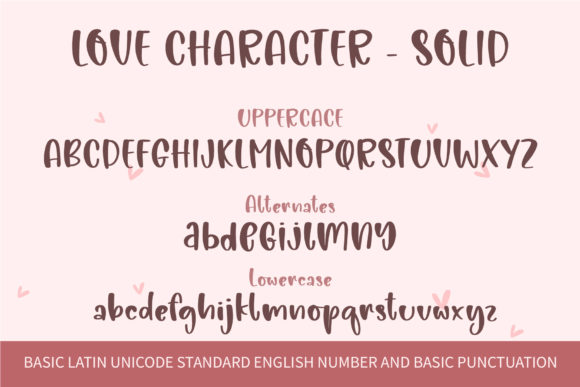
Love Font
db-ku.com - Script & Handwritten -- Love is a cute handwritten font. Its sweet and full of life style makes this font a wonderful choice for brightening up your designs.